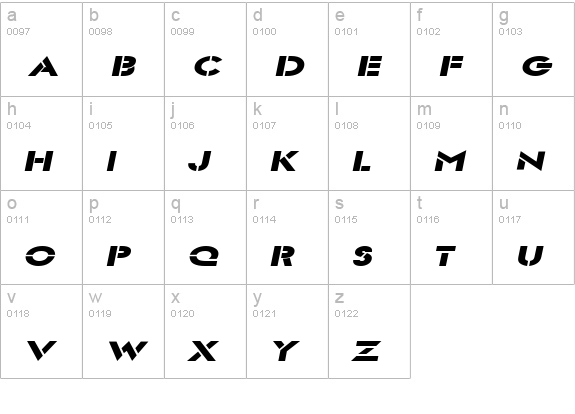
Templett Extended Italic is a distinctive, extended-width, italic variant in the Templett typeface family \xE2\x80\x94 well suited to design and typography projects.
Templett Extended Italic font is a stunning typeface that exudes elegance and sophistication. With its sleek and slanted letterforms, this font effortlessly adds a touch of modernity to any design project. Its extended proportions give the text a unique and eye-catching appearance, making it perfect for headlines, titles, and logos. What makes Templett Extended Italic font even more appealing is that it is available for free! Yes, you heard it right - this incredible font can be downloaded at no cost from FontsMarket.com. Whether you are a professional graphic designer or a passionate hobbyist, having access to high-quality fonts without breaking the bank is always a great advantage. Featuring a wide range of characters, including lowercase and uppercase letters, numbers, and special symbols, Templett Extended Italic font offers versatility and flexibility in your creative endeavors. Its smooth and flowing lines create a harmonious rhythm, captivating the reader's attention and ensuring a pleasant reading experience. Impress your audience with the modern and stylish vibe of Templett Extended Italic font. Whether you are designing a website, a magazine layout, or a branding project, this font will effortlessly elevate your designs to the next level. Don't miss out on the opportunity to add this beautiful typeface to your font collection - head over to FontsMarket.com and download Templett Extended Italic font for free today!